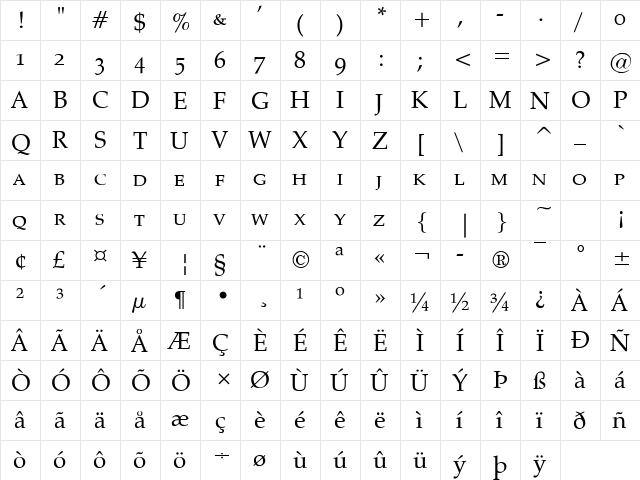
Palatino Small Caps Regular
Design Context for Palatino Small Caps Typeface
Palatino Small Caps offers clean, dependable letterforms without strong stylistic allegiance, making it a practical choice for designers who need flexibility.